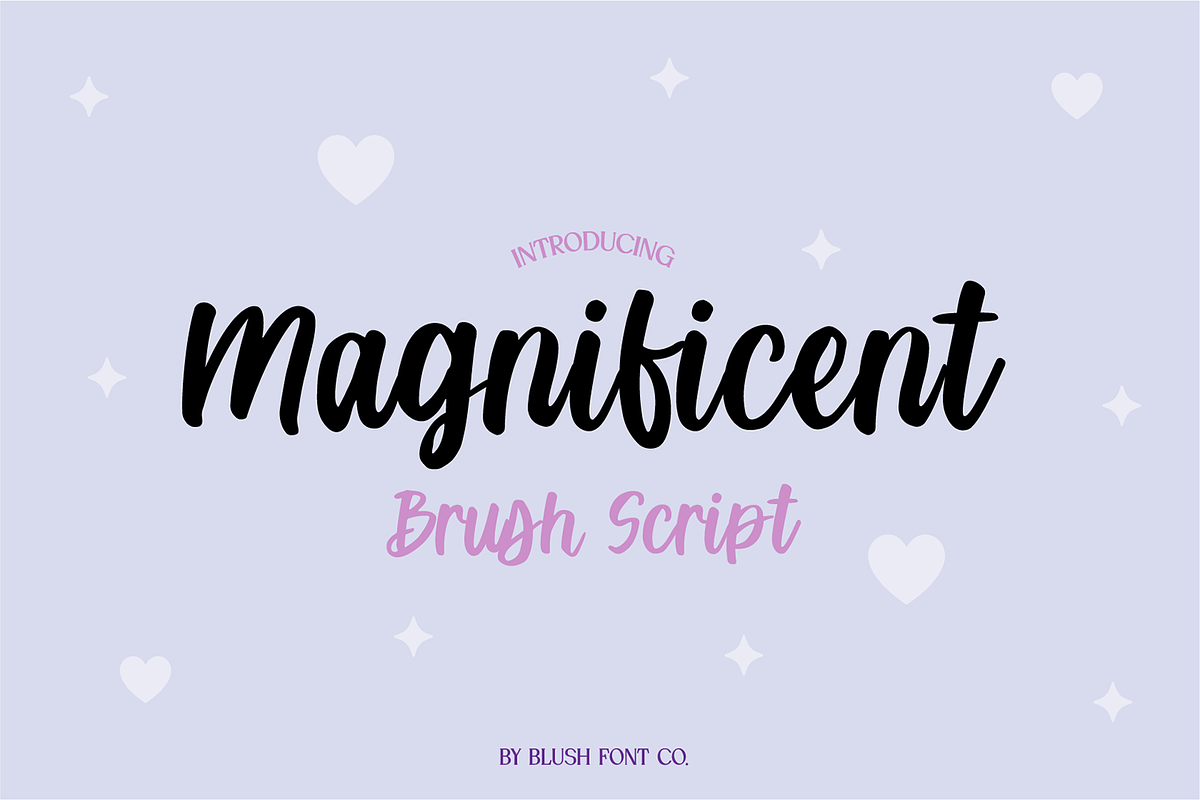
MAGNIFICENT Brush Script Cursive Font Free Download is a dynamic and stylish typeface that captures the energy of hand-brushed lettering with an elegant cursive flair. Perfect for branding, signature logos, fashion campaigns, social media posts, wedding invitations, and lifestyle packaging, this font adds a sense of confidence and flair to any project.
With sweeping strokes, natural flow, and a slightly edgy touch, MAGNIFICENT brings both beauty and boldness. It's designed to mimic real brush handwriting, giving your typography an expressive, authentic look that stands out—especially in headlines and statement pieces.
This font includes uppercase and lowercase letters, numerals, punctuation, and multilingual support. It also offers ligatures and stylistic alternates for added customization and personality in your designs.